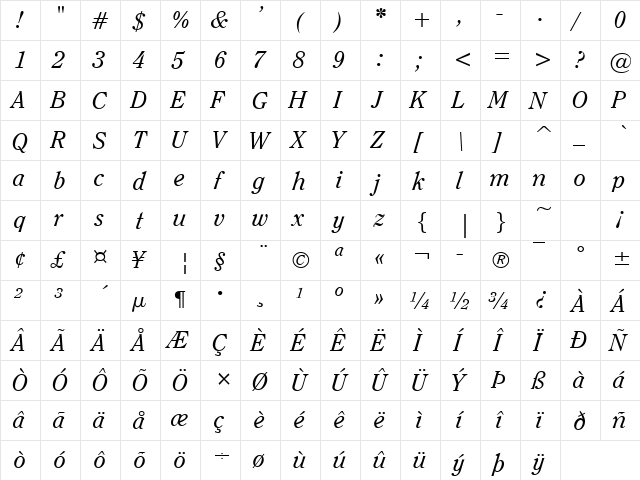
Oxford Italic
Design Context for Oxford Typeface
Oxford takes a measured approach to typography — its balanced proportions and neutral character make it a reliable workhorse for both digital and print work. The dynamic lean of this cut emphasises speed and emphasis in any layout.
Pro Tip: Use Oxford for emphasis, pull quotes, and subheadings where its slanted energy can add rhythm to the layout.